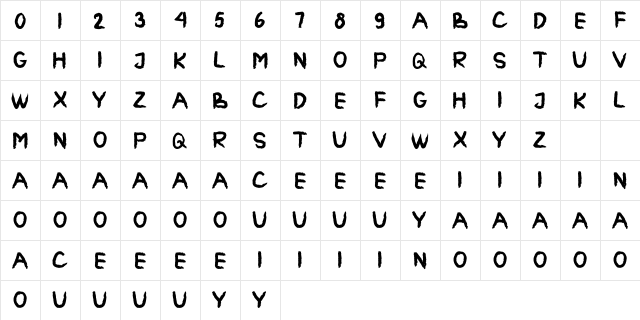
RIN Regular
Design Context for RIN Typeface
RIN is a composed and adaptable typeface that performs quietly and consistently across a wide range of design contexts.